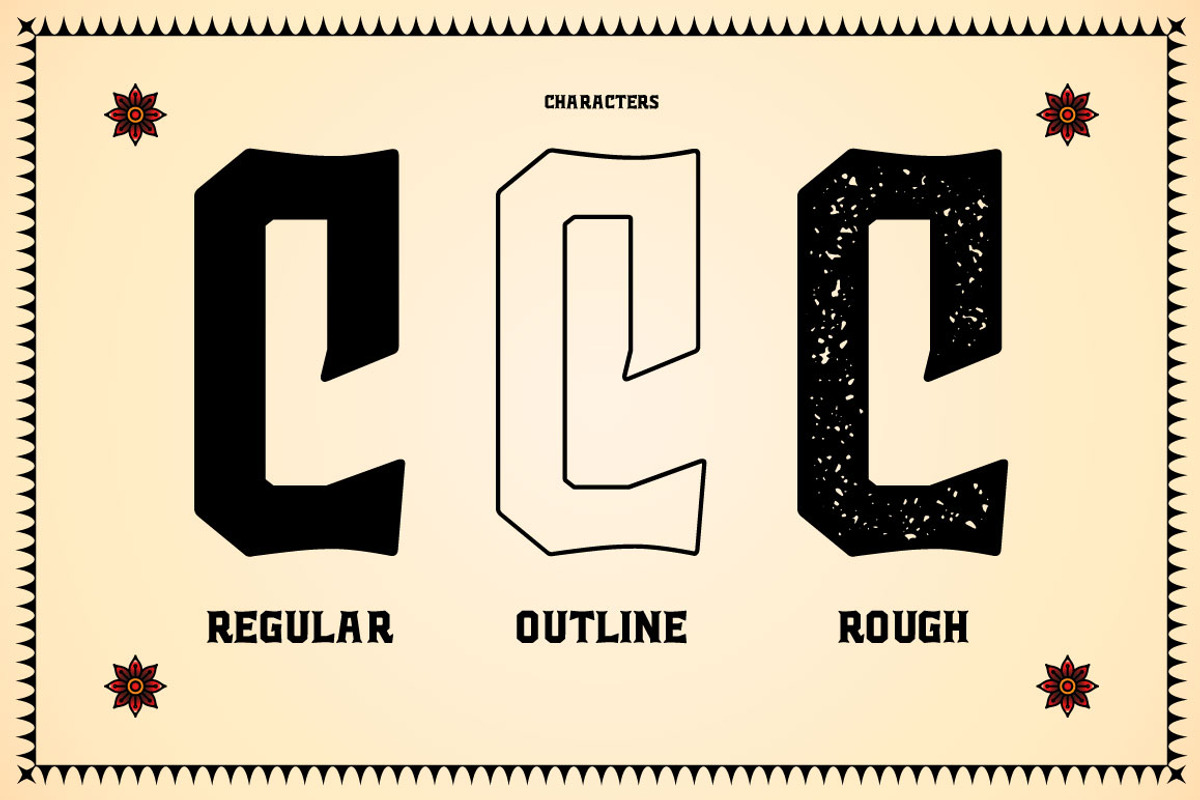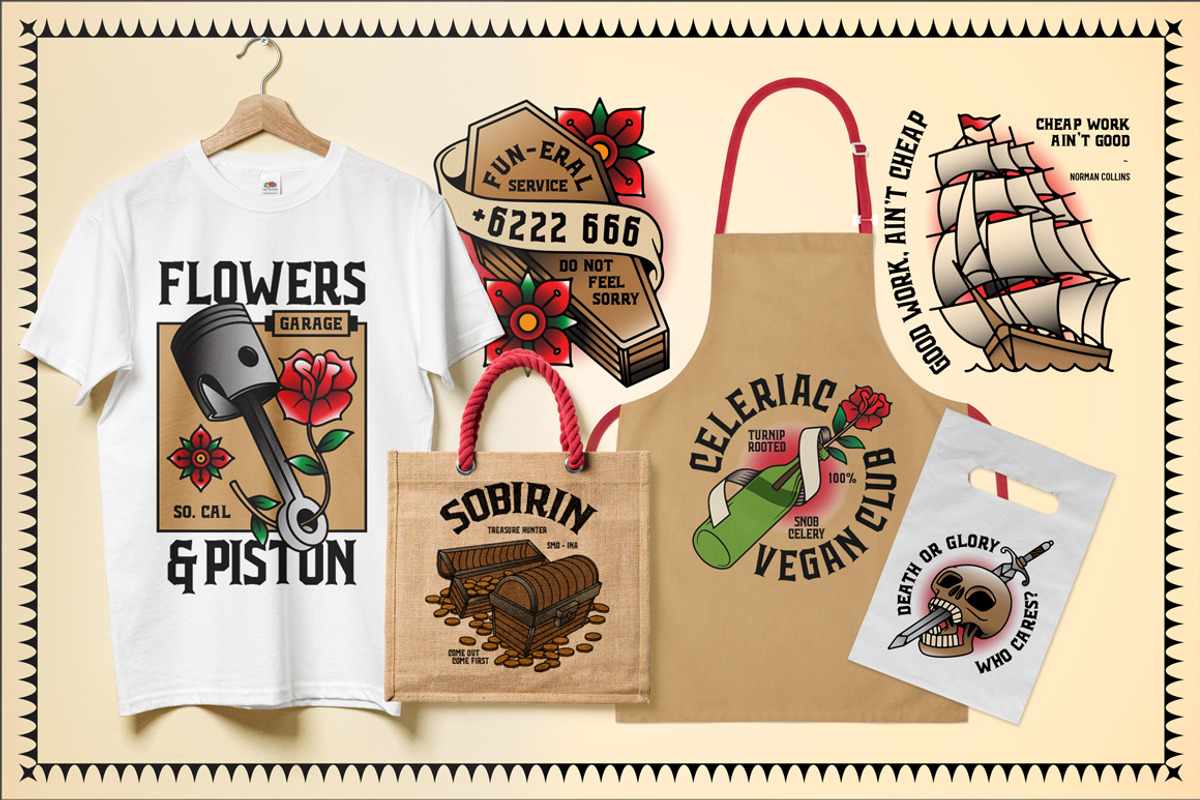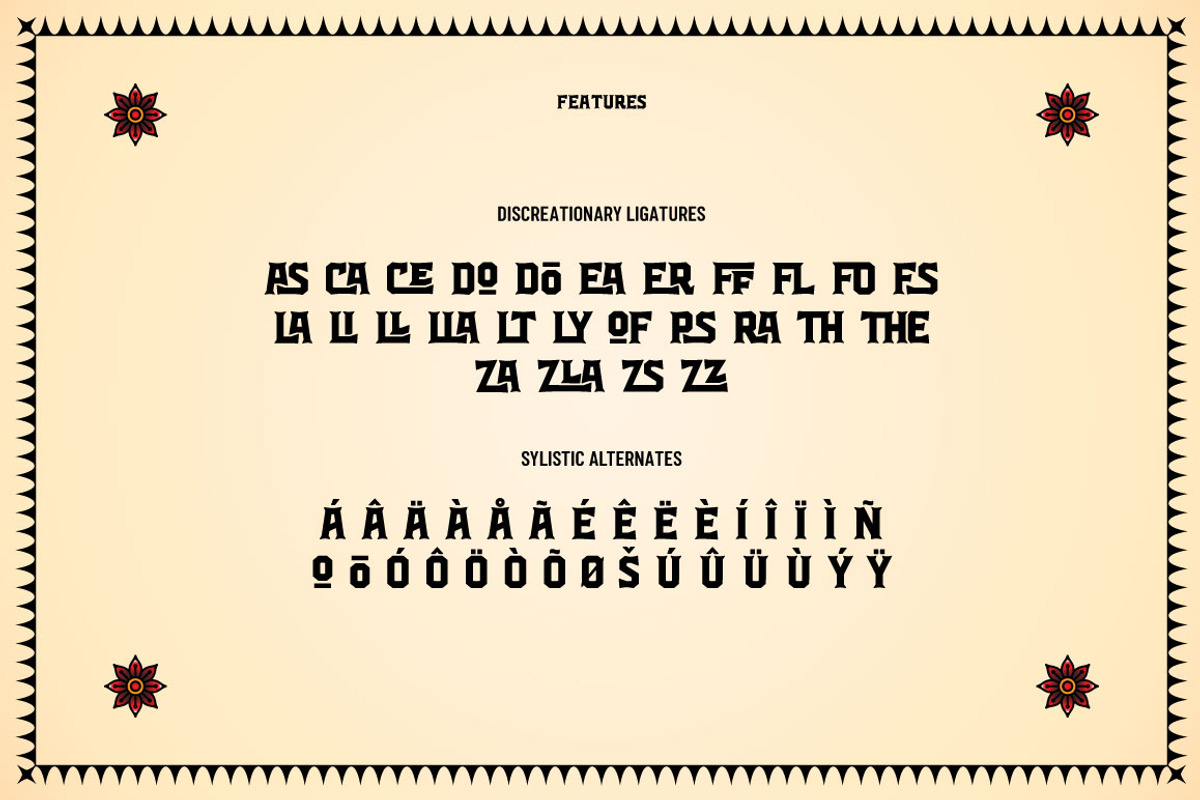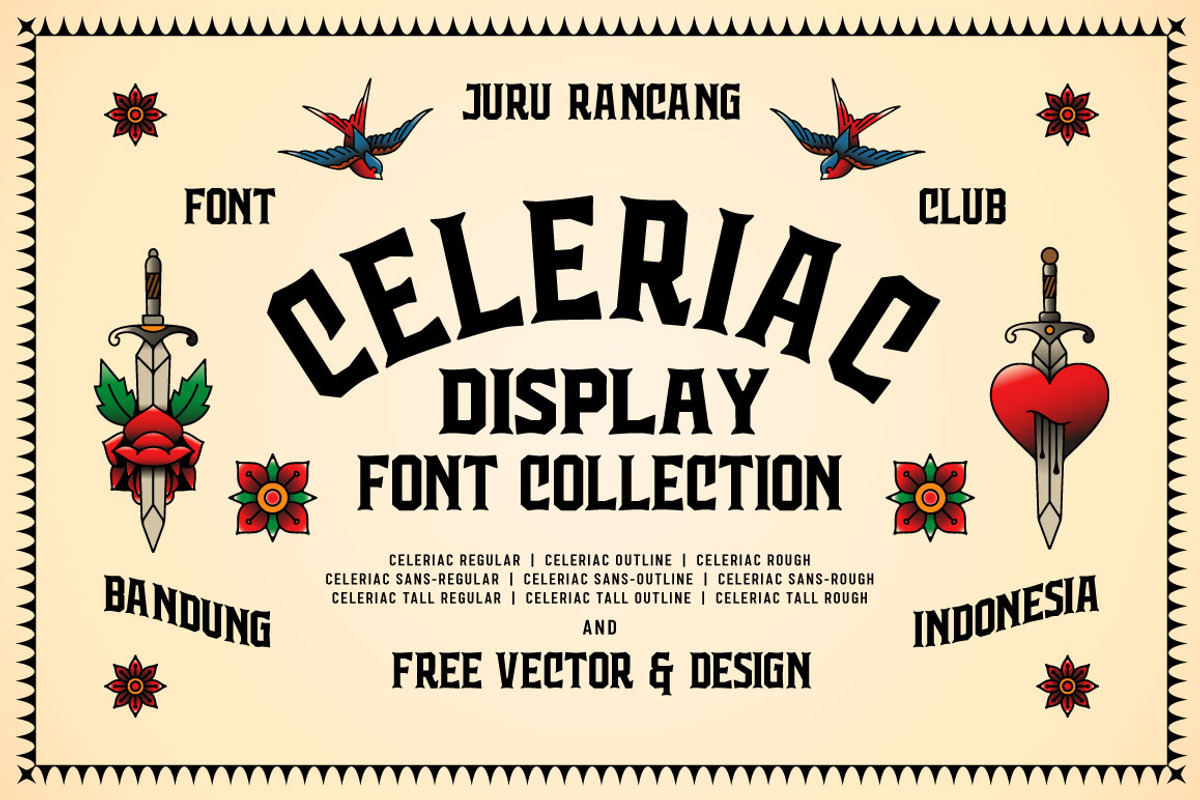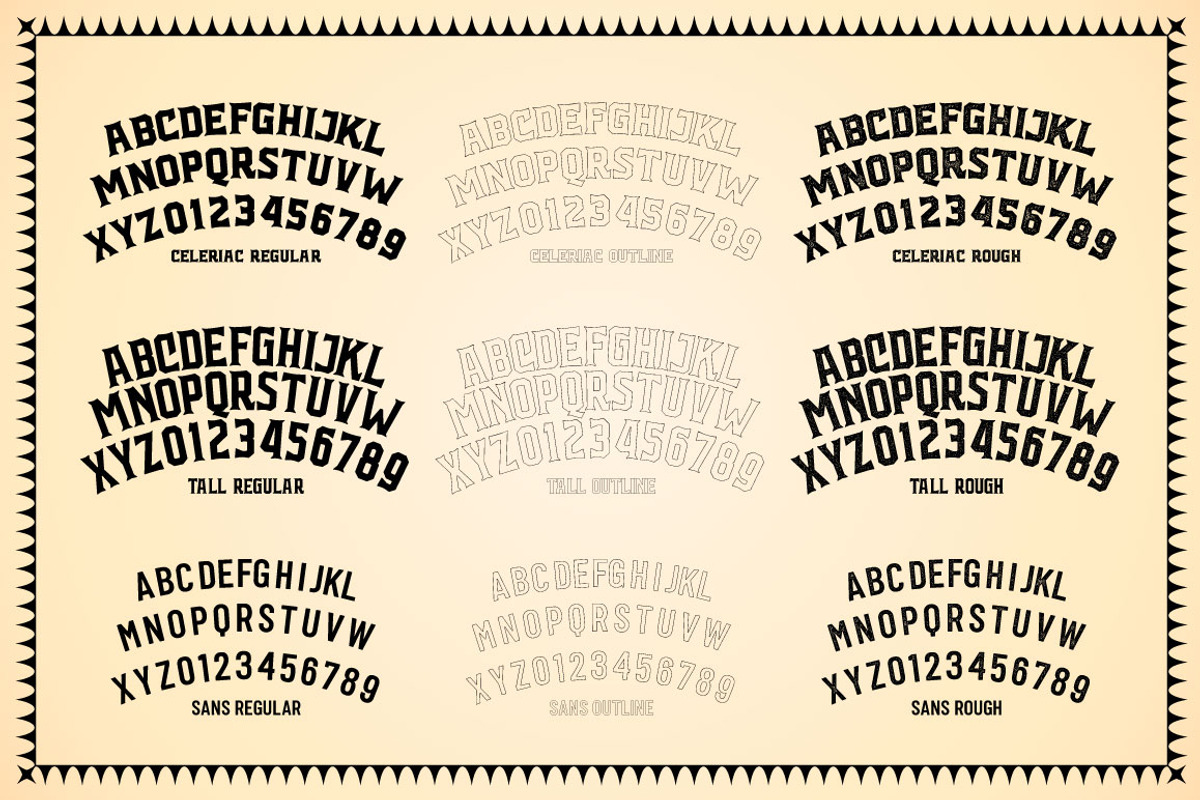
Celeriac + Bonus
Celeriac is a display typeface full of magical, retro power and dirty. A decorative and fun typeface to play with!
- Celeriac Outline
- Celeriac Regular
- Celeriac Rough
- Celeriac Sans
- Celeriac Sans Outline
- Celeriac Tall
- Celeriac Tall Outline
- Celeriac Tall Rough